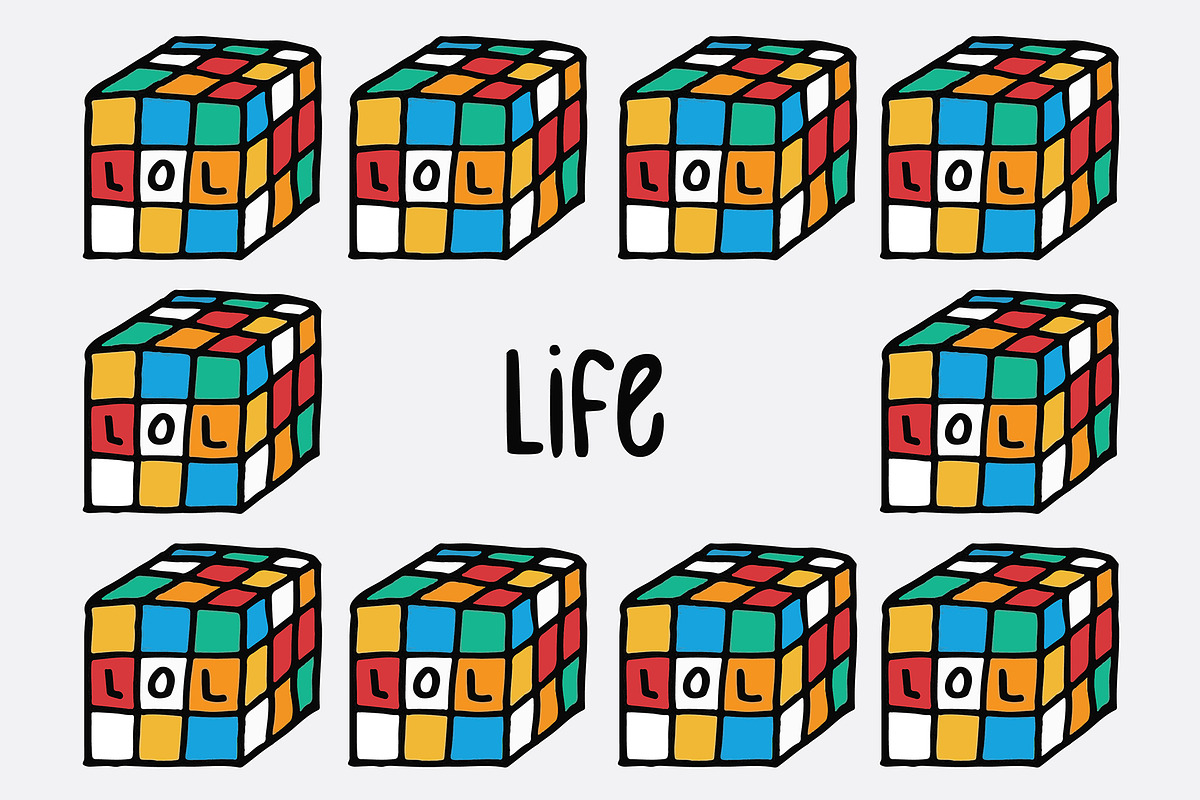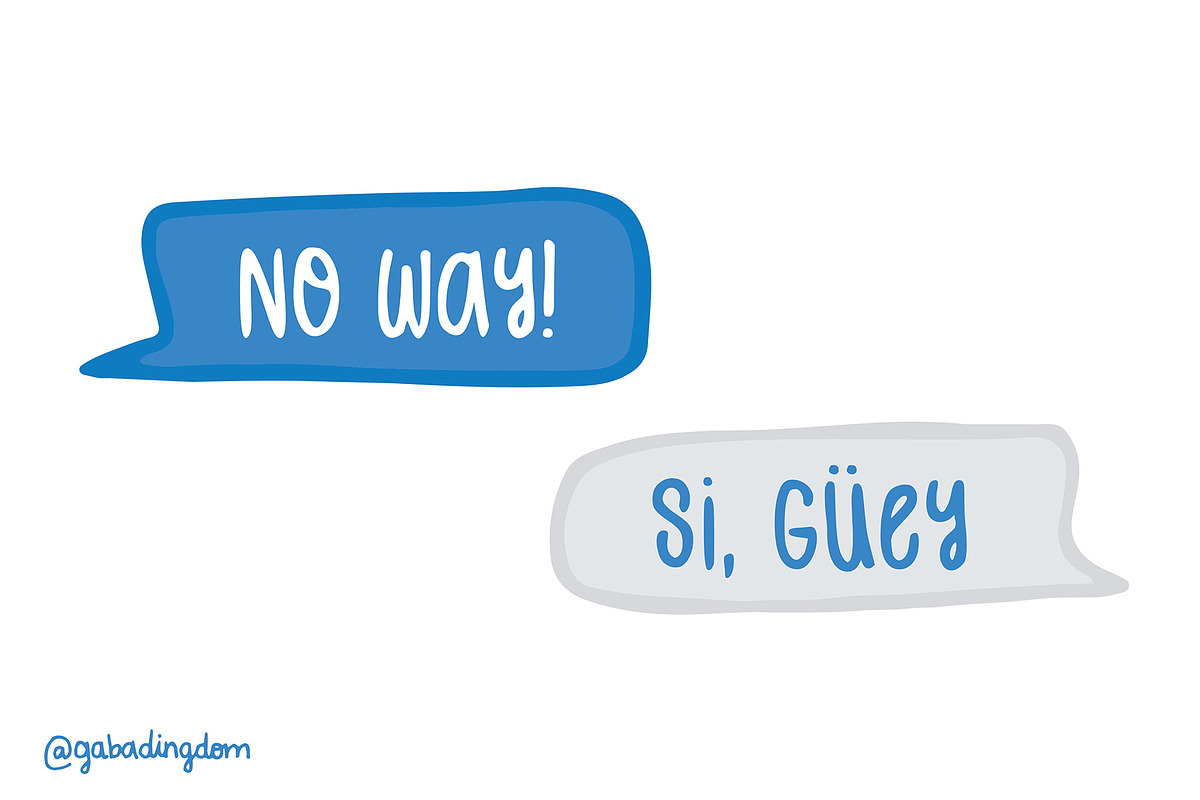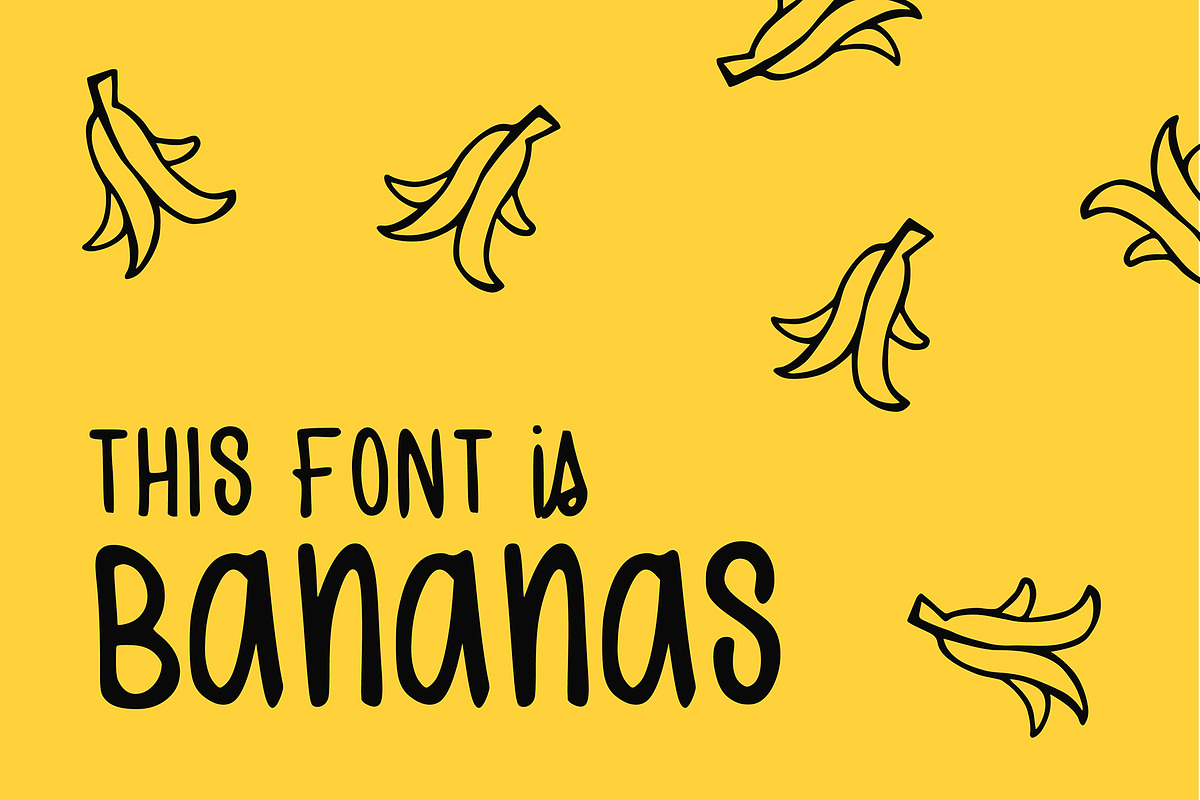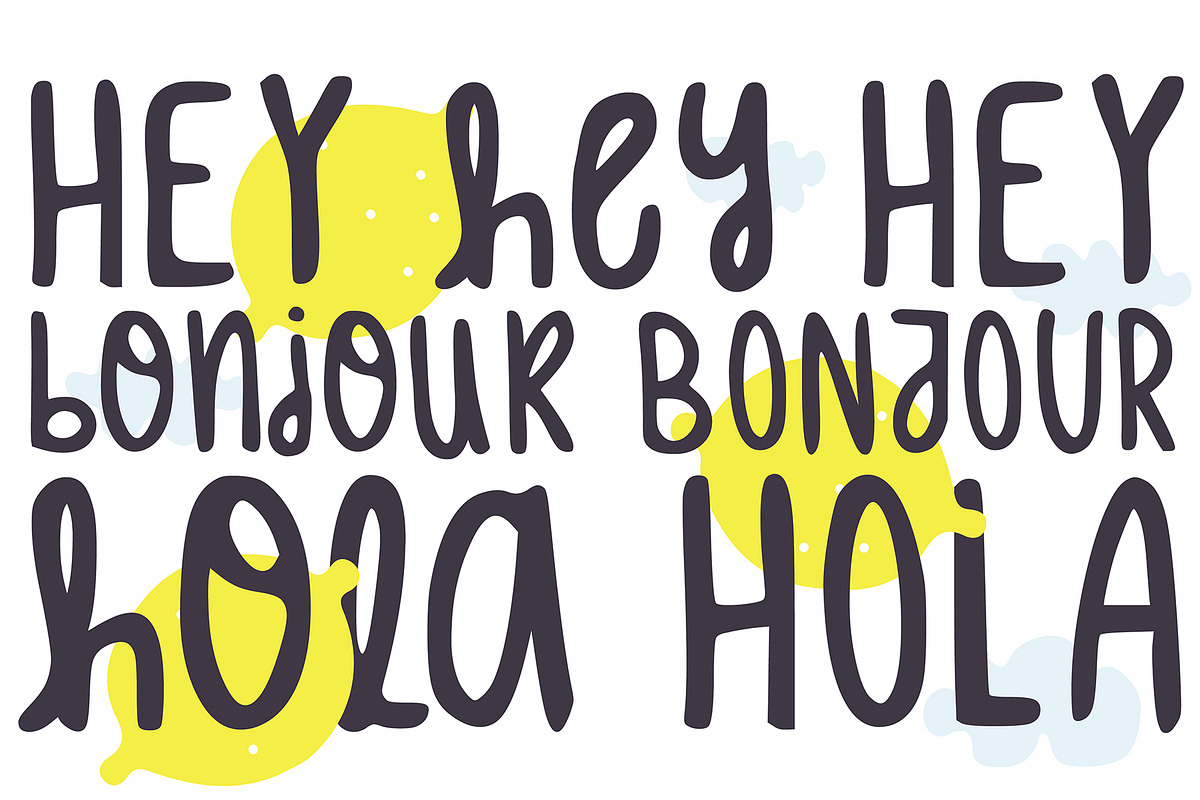
The MartyG
A hand-drawn font full of playful energy and charm. Perfect for adding a friendly, lighthearted touch to any project, this versatile typeface comes with English, French, and Spanish extended characters. Ideal for branding, posters, and packaging that need a bold, youthful vibe.